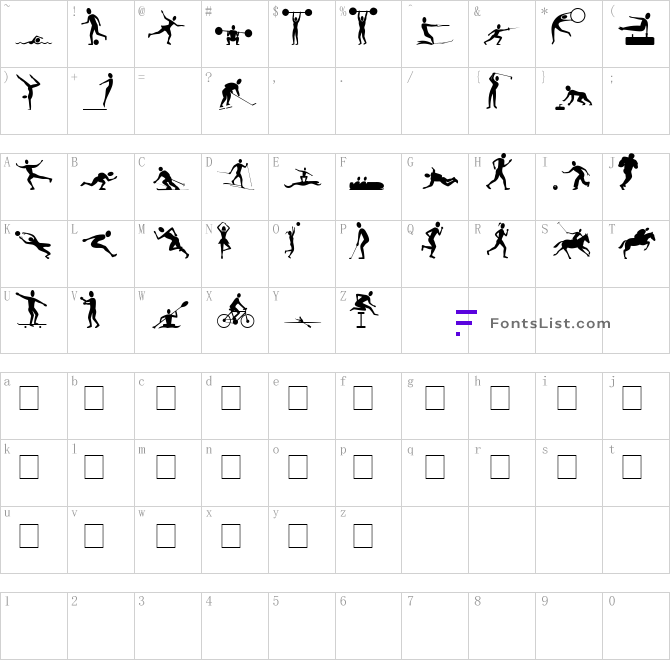
- Font Name:Athletes
Athletes-copy-4-.ttf is a very beautiful artistic font, Athletes-copy-4-.ttf is widely used in the design and printing of various books and pictures,Athletes-copy-4-.ttf has a strong visual impact,Athletes-copy-4-.ttf is a commonly used font in newspapers, magazines and books, and is used in posters, e-commerce Poster design, store design, logo design, font design and other fields.Athletes-copy-4-.